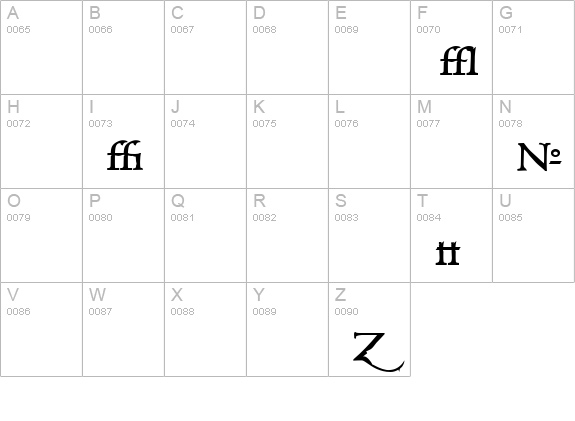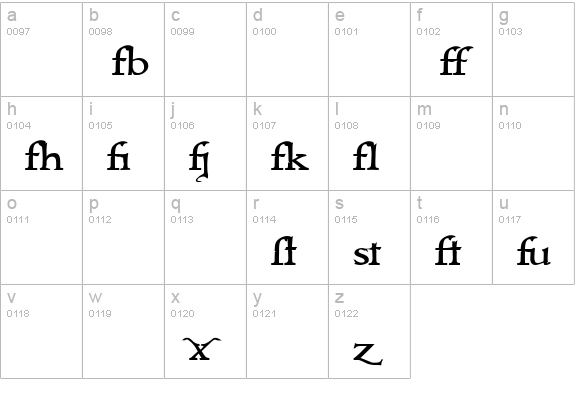
Immortal - Alternates Font Details
Introducing Immortal - Alternates, a striking and captivating font that will leave a lasting impression on your designs. With its unique and artistic design, this font adds a touch of elegance and mystery to any project. What sets Immortal - Alternates apart is its versatility. Whether you're working on a logo, branding, packaging, or any other creative endeavor, this font effortlessly adapts to suit your vision. Its stylish and sophisticated letterforms will instantly elevate your design and make it stand out from the crowd. But what makes Immortal - Alternates truly special is that it is free. Yes, you read that right! This incredible font is freely available to download at FontsMarket.com. Now you can bring a touch of timeless beauty to your projects without breaking the bank. Featuring a wide range of alternate characters, Immortal - Alternates gives you the freedom to experiment and create truly unique typography. Each letter is meticulously crafted, ensuring a seamless flow and exceptional legibility. Whether you're aiming for a classic or contemporary look, this font has got you covered. With its generous x-height and balanced proportions, Immortal - Alternates guarantees readability even at small sizes. This makes it an excellent choice for both digital and print designs. From headlines to body text, this font maintains its elegance and clarity, making it a reliable choice for all your typographic needs. So don't miss out on this opportunity to enhance your designs with Immortal - Alternates. Download it for free at FontsMarket.com and unlock a world of creative possibilities. Elevate your projects and leave a lasting impression with this stunning font.